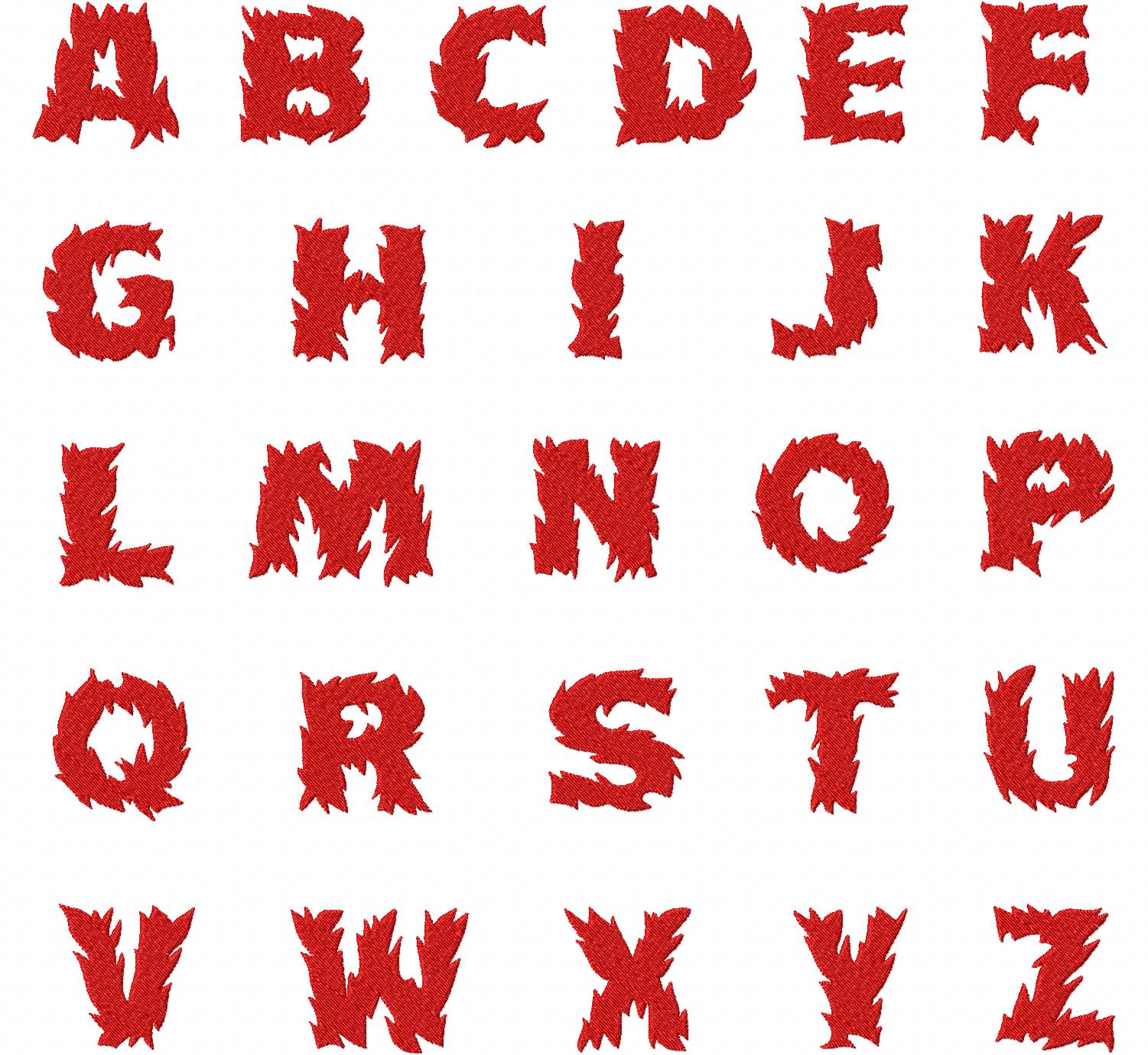
Font week continues with a free machine embroidery font set so hot it's burning up with style! Join our Gold Member program and receive a additional font each day! That's 14 fonts for one super low price! Download the Firecat Machine Embroidery Font Set for free for one day only.